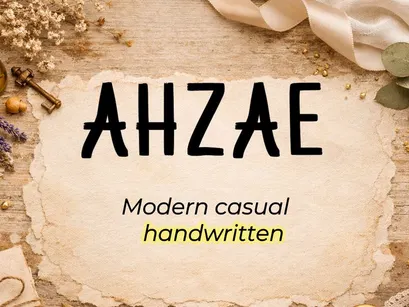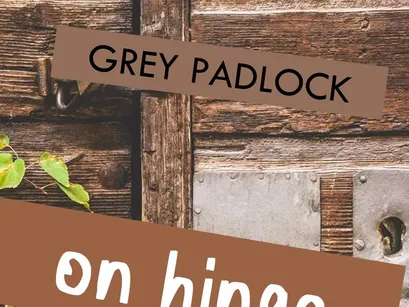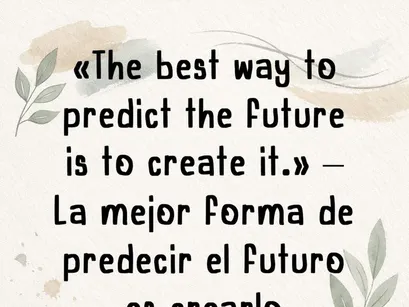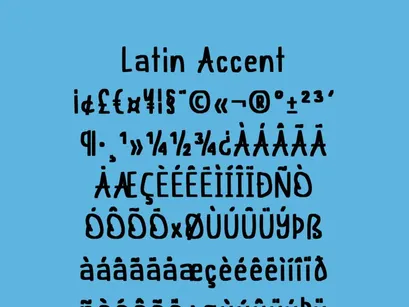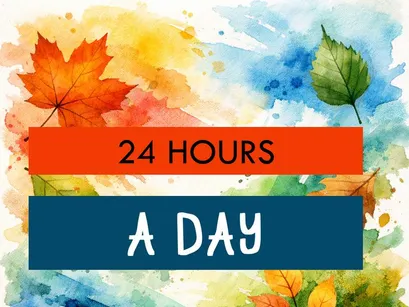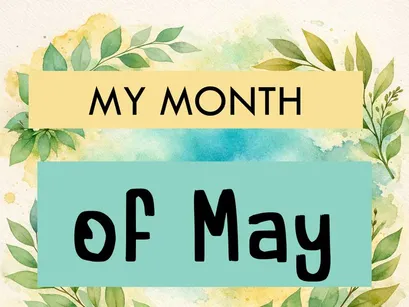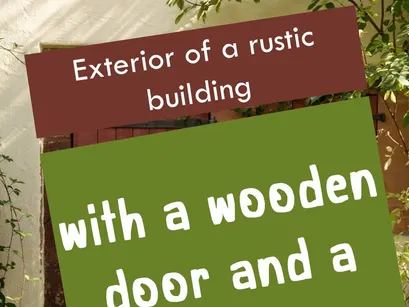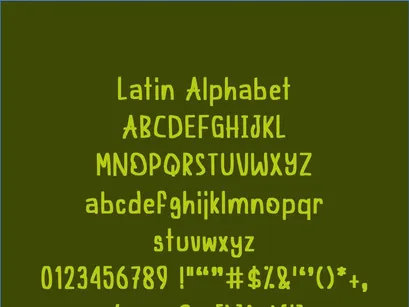
AHZAE is a modern, casual, handcrafted-style typeface designed to capture the spontaneity of hand-drawn strokes while maintaining a clean, professional finish. Its balanced structure and organic texture make it ideal for creative projects, agendas, planners, covers, and branding with personality.
Each character retains the charm of an authentic doodle, adding warmth and dynamism to your designs.
Style: Modern, casual handwritten
Full uppercase and lowercase character sets
Support for accents and Latin characters
Perfect for headlines, inspirational quotes, and handcrafted designs